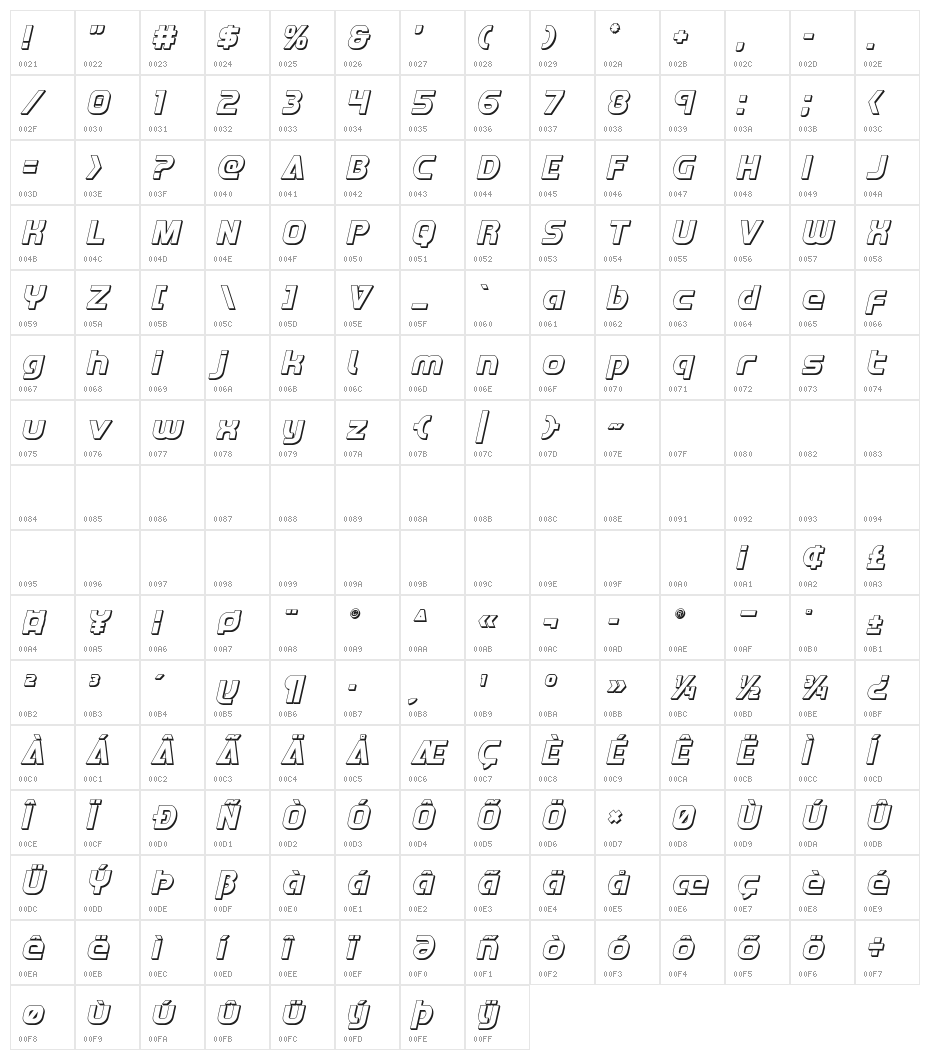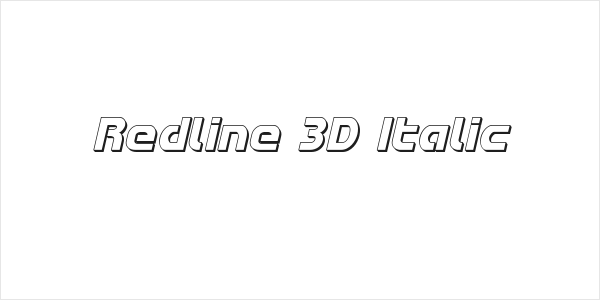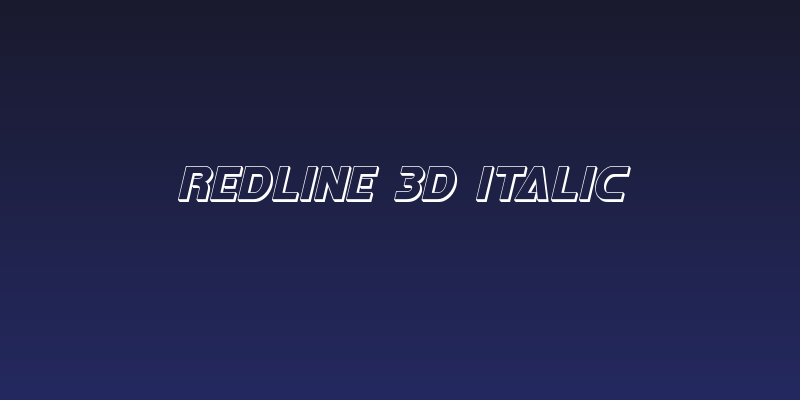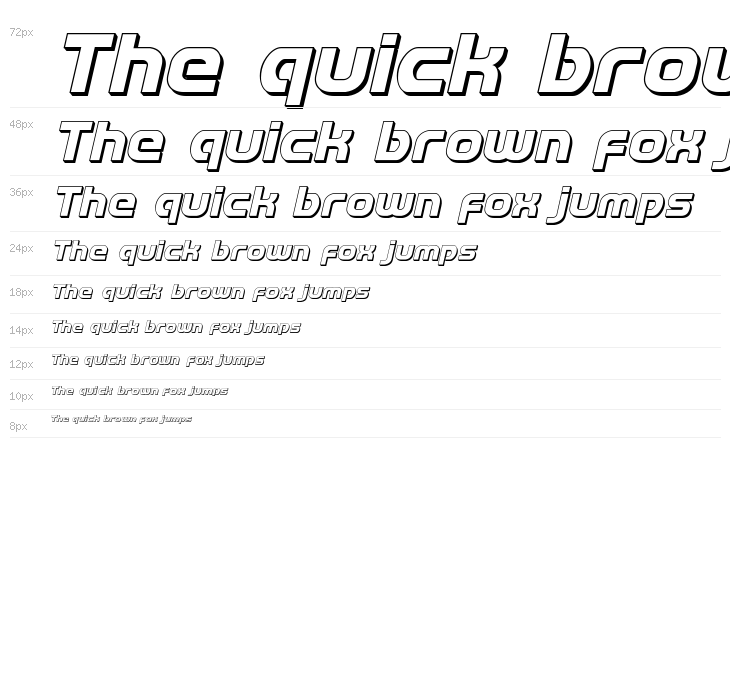
Redline 3D Italic Font
Redline 3D Italic Description
This font features a bold, three-dimensional appearance with a distinct italic slant, giving it a dynamic and futuristic feel. The characters are outlined, creating a layered effect that adds depth and visual interest. The uppercase and lowercase letters maintain a consistent style, with smooth curves and sharp angles that enhance readability. The numerals and special characters follow the same design principles, ensuring uniformity across all glyphs. This font is ideal for projects that require a modern and eye-catching aesthetic.
| Proposed Projects | Ideal for branding, posters, video game graphics, and futuristic-themed designs. |